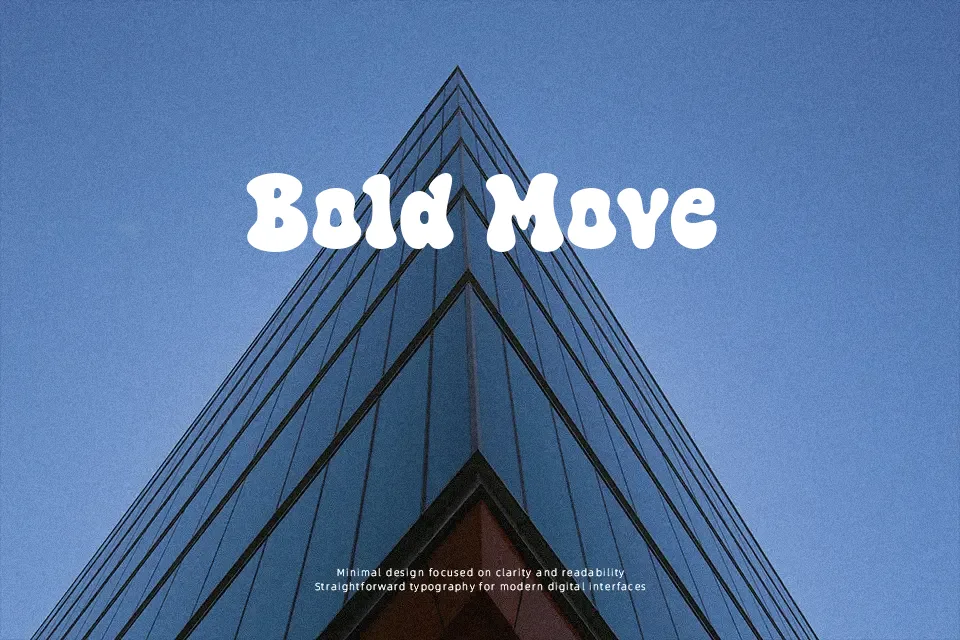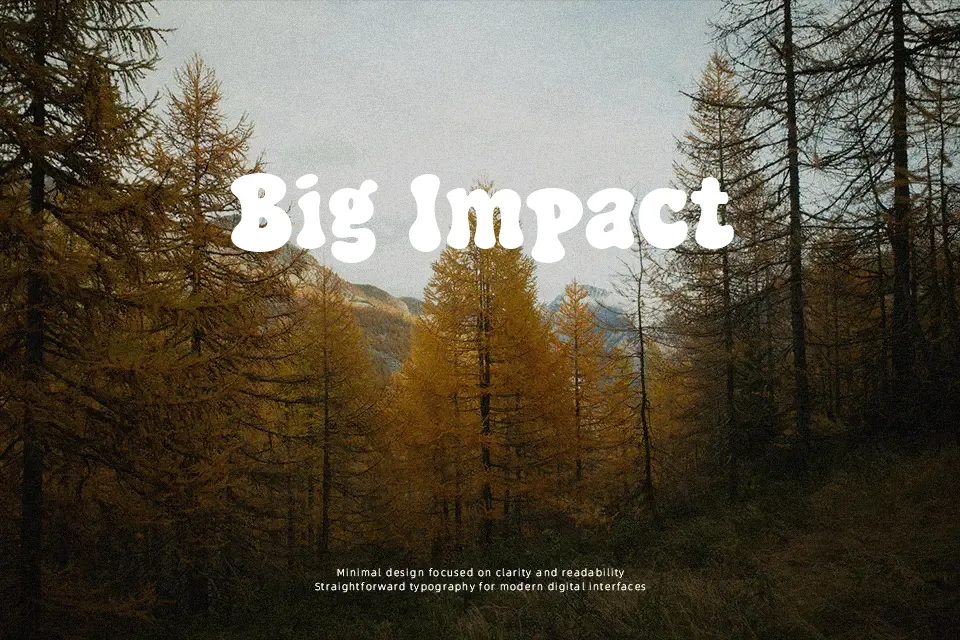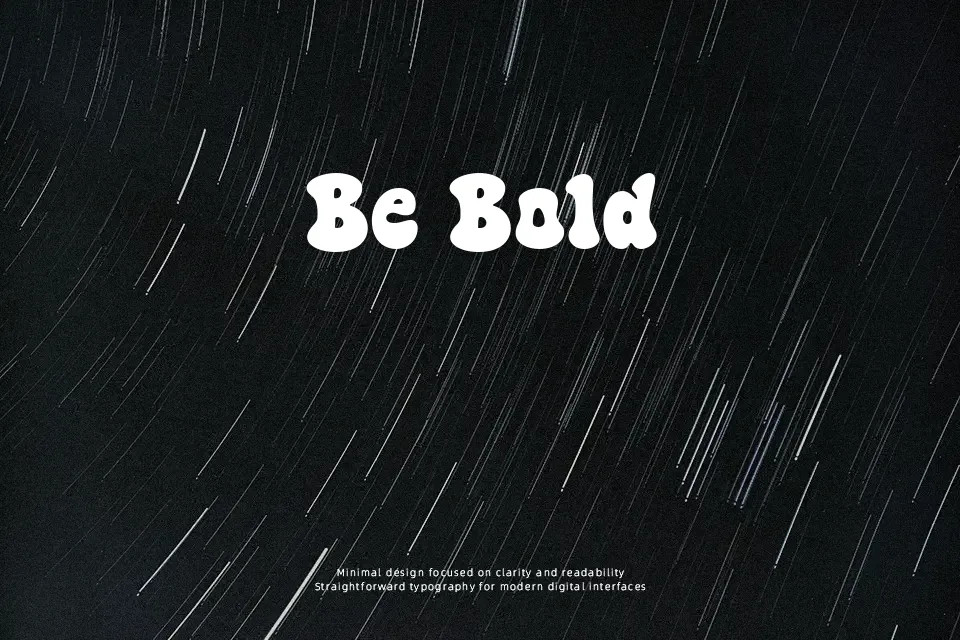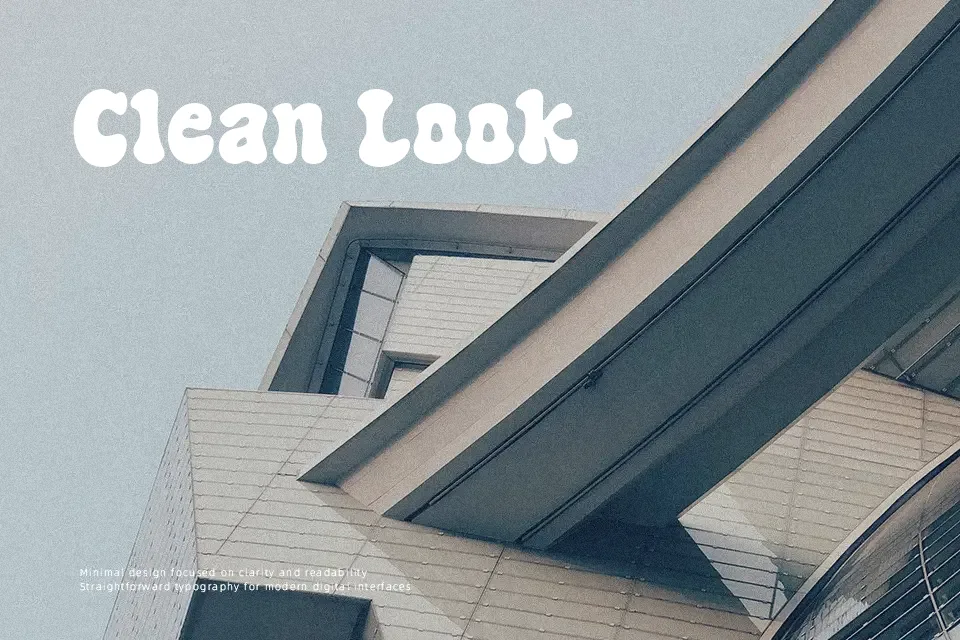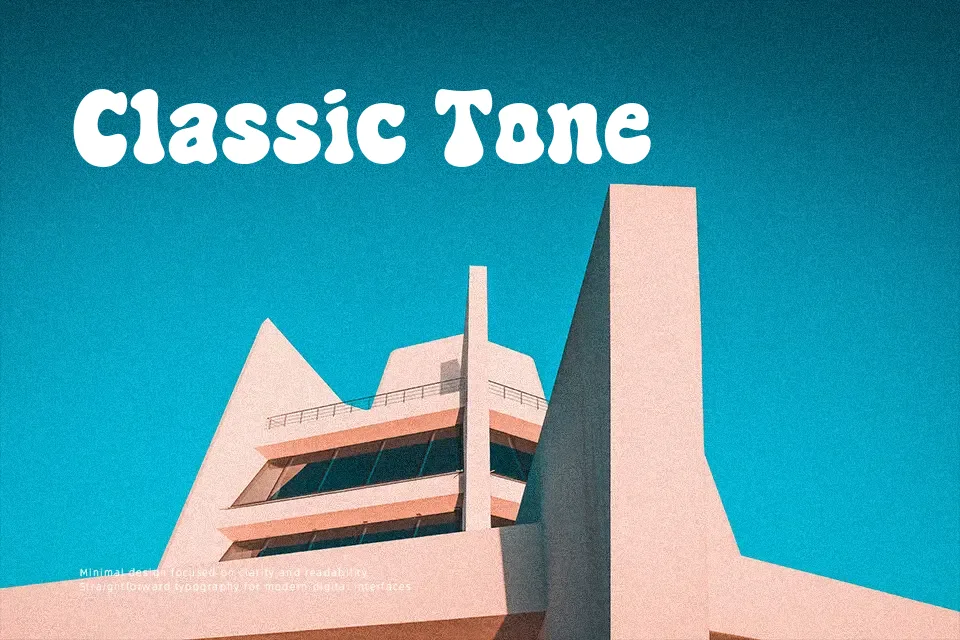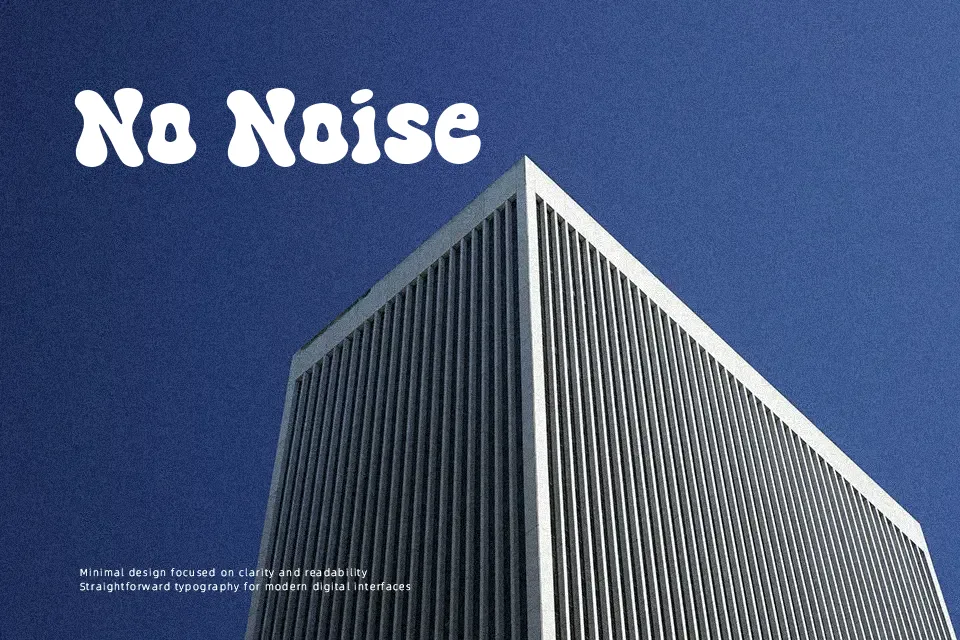
Super Maples Font
Super Maples Font features ultra-bold weights, exaggerated bulbous curves, and tightly tucked inner counters that emphasize organic silhouette over rigid geometry. The generous stroke thickness creates noticeable weight contrasts against compact negative spaces, while rounded terminals maintain visual warmth across uppercase and lowercase pairings. Spacing remains tight to preserve graphic cohesion, making the typeface particularly effective for oversized poster headlines, children’s book titles, and retro product packaging. However, the heavy density significantly impairs legibility in dense paragraph settings and reduced screen captions. The design functions at its highest level when set as short, punchy titles where expressive forms can breathe.
Best For: vintage event posters, retro product packaging, playful apparel prints, children’s book covers
Not Ideal For: continuous body text, legal contracts, dense spreadsheet tables, small mobile interface labels